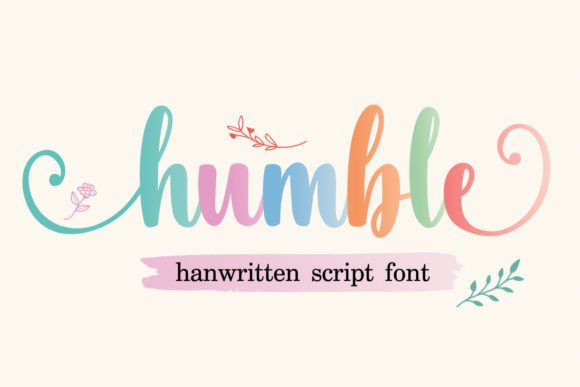
Introducing Humble Font, the best font for signature with a touch of elegance and style. This font family is a creation of Mozatype, a well-known name in the world of typography. Humble is a script font that will add a touch of class to your designs, making them come alive with its unique and beautiful touch.
With its flowing and handwritten style, Humble Font is perfect for various projects, be it personal or professional. Its elegant touch makes it the perfect choice for wedding invitations, greeting cards, logos, and branding materials. The font's joyful and romantic touch will instantly elevate the look of your designs and evoke emotions in your viewers.
One of the unique features of Humble Font is that it is PUA encoded, which means that you can easily access all of the glyphs, swashes, and ligatures. This makes it easier for you to create custom designs that perfectly reflect your brand or style.
Humble Font is the perfect choice for anyone who wants to make their designs stand out. Its versatility and creativity make it a great investment for both personal and professional use. Whether you're a graphic designer, calligrapher, or anyone who appreciates the beauty of fonts, Humble Font is a must-have in your collection.